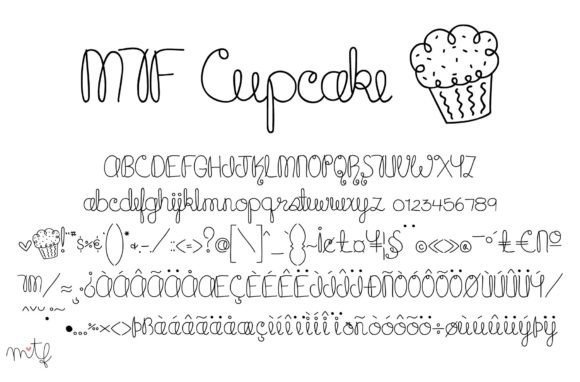
The Sweetest Touch: Introducing Cupcake Font
Who else remembers the thrill of discovering a new font that instantly sparks a wave of creative ideas? It’s like stumbling upon a hidden treasure in a digital library, and suddenly, your project takes on a whole new life. That’s exactly what happened when I first laid eyes on Cupcake Font – a delightful, handwritten typeface that screams friendliness and charm.
Cupcake Font is the perfect addition to any project that needs a touch of warmth and personality. Whether you’re designing a menu for a quaint bakery, a cookbook for a beloved family recipe, or a marketing campaign for a lifestyle brand, this font is sure to bring a smile to your audience’s face. As a designer, you’ll appreciate the versatility of Cupcake Font, which can effortlessly elevate even the most mundane projects into something truly special.
Cupcake Font Key Features
- Unique Characteristics: The Cupcake Font features a whimsical, handwritten design with a mix of bold and cursive elements, perfect for adding a touch of personality to your designs.
Cupcake Font Review
Overall, I’m quite impressed with the “Cupcake Font”! ✨ It’s a playful, cursive font that’s perfect for baking-related designs or anything that needs a touch of whimsy. The font is highly customizable, allowing you to adjust the size, color, and even add decorations like sprinkles or icing.
- Playful and whimsical: The font is perfect for baking-related designs or anything that needs a touch of personality.
- Not suitable for formal designs: The font is a bit too playful for formal designs, such as business cards or resumes.
- Limited font weights: While the font is highly customizable, it’s limited to a few different font weights, which may not be suitable for all designs.
- May not be readable in small sizes: The font can be a bit difficult to read in small sizes, so be sure to test it out before using it in a design.
Overall, I’d give the “Cupcake Font” 4 out of 5 stars. It’s a fun and versatile font that’s perfect for baking-related designs or anything that needs a touch of personality. However, it may not be suitable for formal designs or small text sizes.
The Cupcake Font is perfect for:
Designing sweet treats and desserts
Creating whimsical and playful designs
Adding a touch of elegance and sophistication to your designs
Experimenting with different text styles and effects to create unique designs